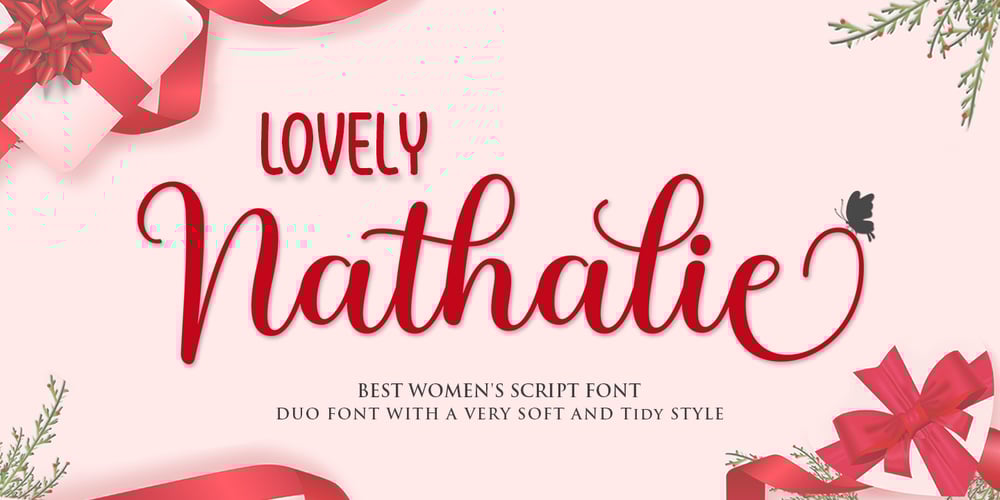
Lovely Nathalie Script Duo Font Family was designed by Muammar Kadafi and published by Attract Studio. Lovely Nathalie Script Duo contains 3 styles and family package options. Lovely Nathalie Script Font DUO in a very soft and beautiful handwriting style. Equipped with 400+ glyphs. Lovely Nathalie is perfect for branding projects, homeware design, product packaging, use in business cards, invitation cards, etc. Simply as a stylish text overlay onto a background image or anything that requires a touch of elegance.To enable OpenType Stylistic alternates, you need a program that supports OpenType features such as Adobe Illustrator CS, Adobe Indesign & CorelDraw X6-X7, Microsoft Word 2010 or a later version.Thanks for checking! I really hope you enjoy it.